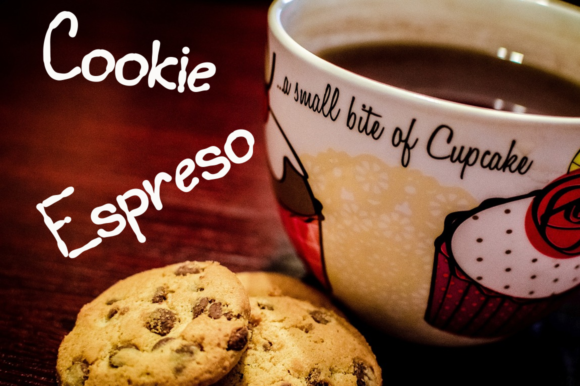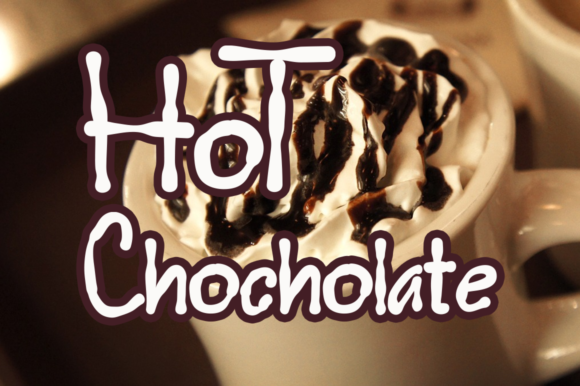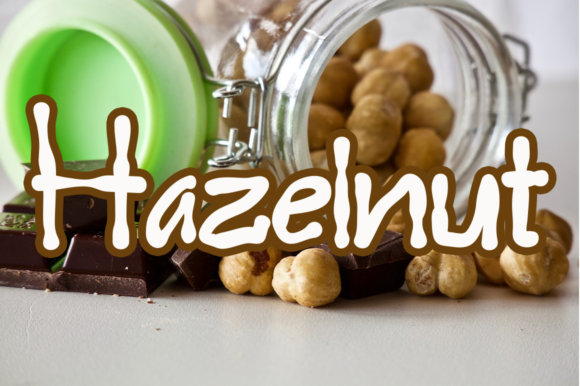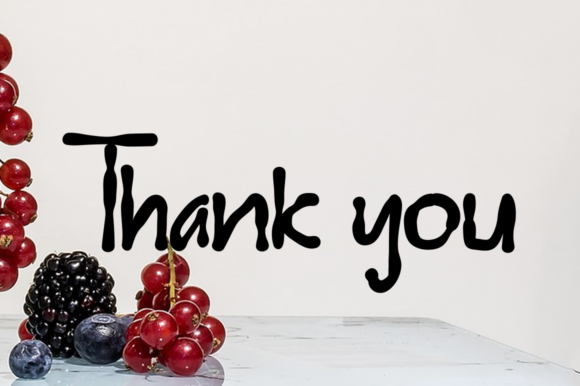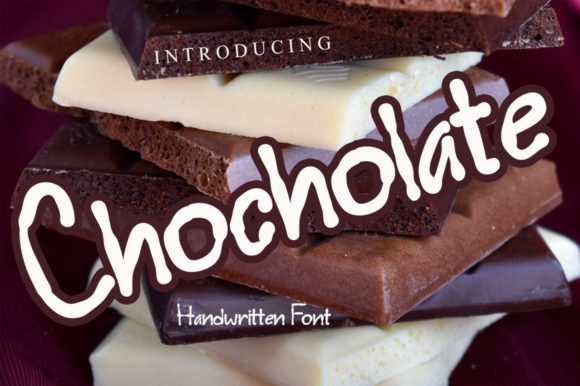
Introducing Chocolate Font: The Cool and Trendy Display Font You Need
Are you a designer or crafter looking for a font that can elevate your creations and make them stand out from the crowd? Look no further than Chocolate Font! This cool and trendy display font is perfect for adding a touch of sophistication and style to any project. In this article, we’ll take a closer look at Chocolate Font, its features, and why it’s an incredibly valuable asset to your font library.
What is Chocolate Font?
Chocolate Font is a modern and edgy display font that’s perfect for headlines, titles, and other creative projects. Its unique and stylish design makes it an excellent choice for designers and crafters who want to add a touch of personality to their work. Whether you’re working on a logo, brochure, or social media graphic, Chocolate Font is sure to make a statement.
Key Features of Chocolate Font
So, what makes Chocolate Font so special? Here are some of its key features:
- Unique and Stylish Design: Chocolate Font has a distinctive and eye-catching design that’s sure to grab attention.
- High-Quality Letters: The font features high-quality, crisp letters that are perfect for large and small sizes.
- Easy to Read: Despite its edgy design, Chocolate Font is surprisingly easy to read, making it perfect for headlines and titles.
- Versatile: Chocolate Font can be used for a wide range of projects, from logos and branding to social media graphics and posters.
Why You Need Chocolate Font in Your Library
So, why should you add Chocolate Font to your library? Here are just a few reasons:
- Elevate Your Creations: Chocolate Font has the potential to elevate any creation and make it stand out from the crowd.
- Save Time: With Chocolate Font, you can create stunning headlines and titles in minutes, saving you time and effort.
- Increase Your Productivity: Having a versatile font like Chocolate Font in your library can increase your productivity and help you work more efficiently.
- Add a Touch of Sophistication: Chocolate Font adds a touch of sophistication and style to any project, making it perfect for designers and crafters who want to create high-end designs.
How to Use Chocolate Font
Using Chocolate Font is easy! Here are a few tips to get you started:
- Pair it with Other Fonts: Chocolate Font pairs well with other fonts, so feel free to experiment with different combinations.
- Use it for Headlines: Chocolate Font is perfect for headlines and titles, so use it to grab attention and make a statement.
- Experiment with Colors: Chocolate Font looks great in a variety of colors, so don’t be afraid to experiment and find the perfect hue for your project.
In conclusion, Chocolate Font is a cool and trendy display font that’s perfect for designers and crafters who want to elevate their creations and add a touch of sophistication to their work. With its unique and stylish design, high-quality letters, and versatility, Chocolate Font is an incredibly valuable asset to your font library. Whether you’re working on a logo, brochure, or social media graphic, Chocolate Font is sure to make a statement. So why wait? Add Chocolate Font to your library today and start creating stunning designs that will leave a lasting impression!